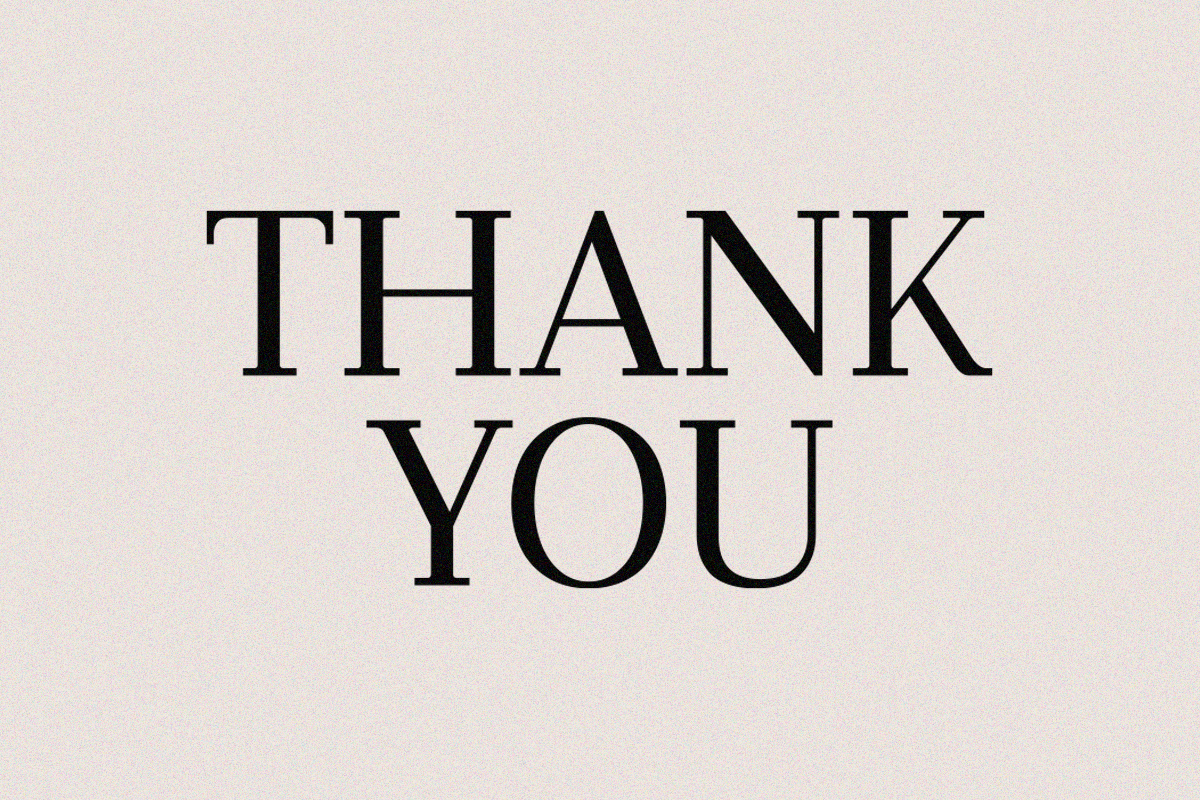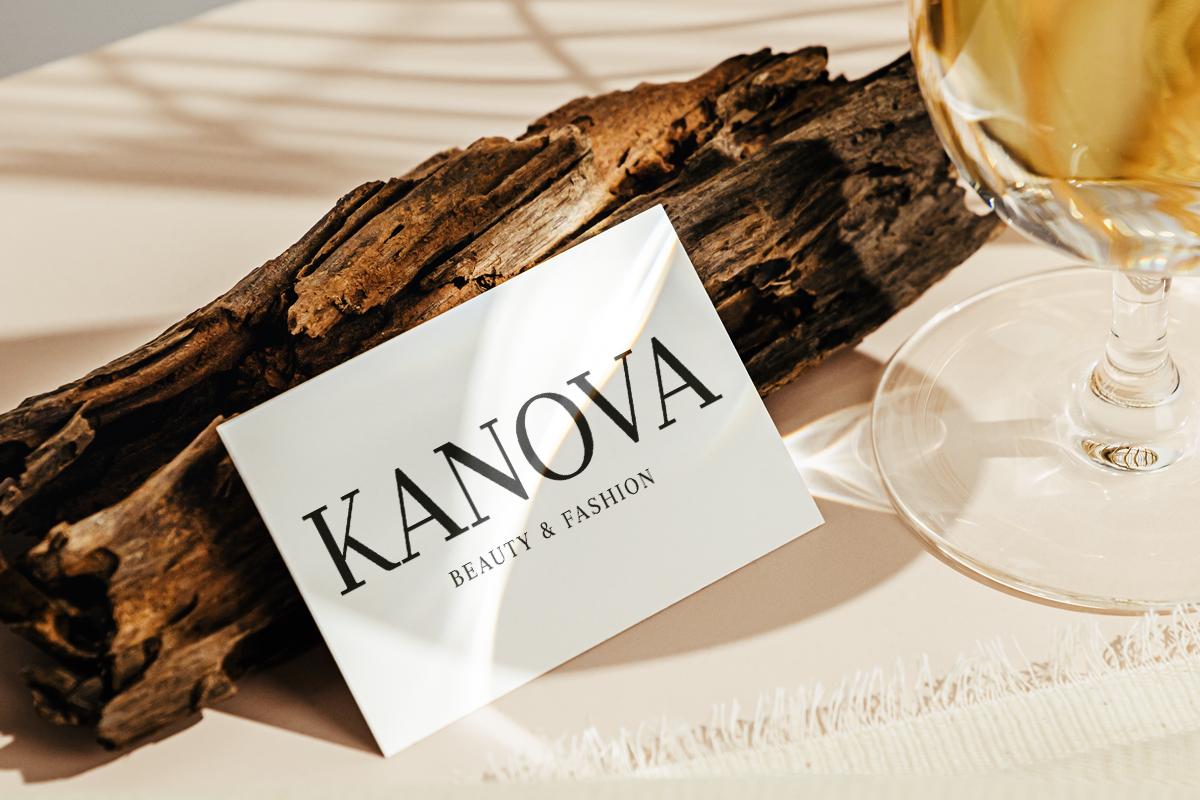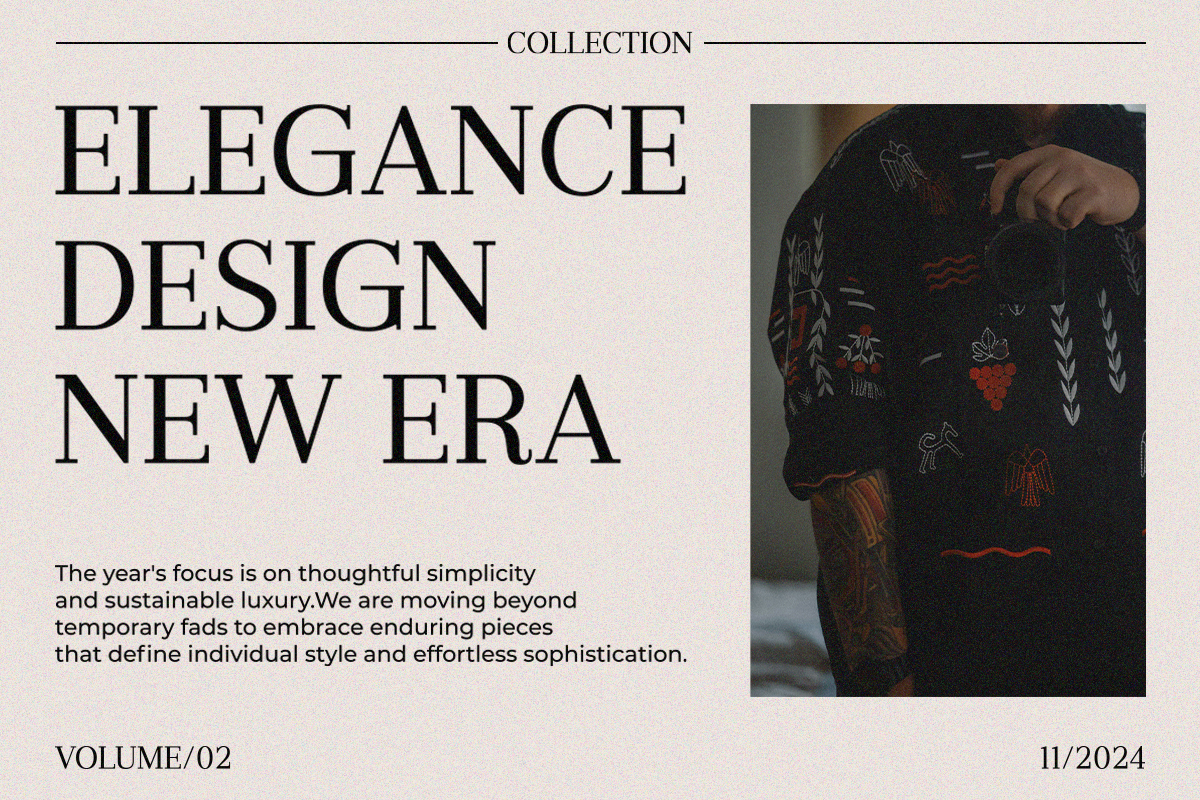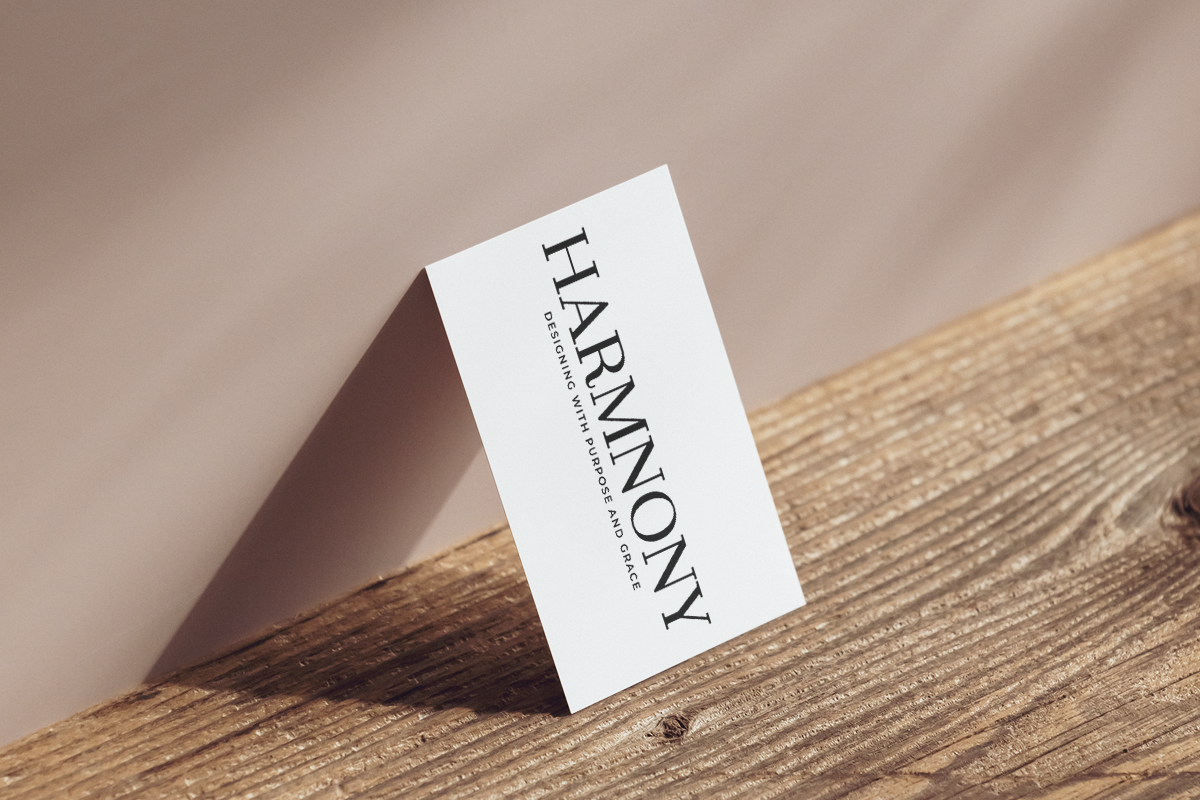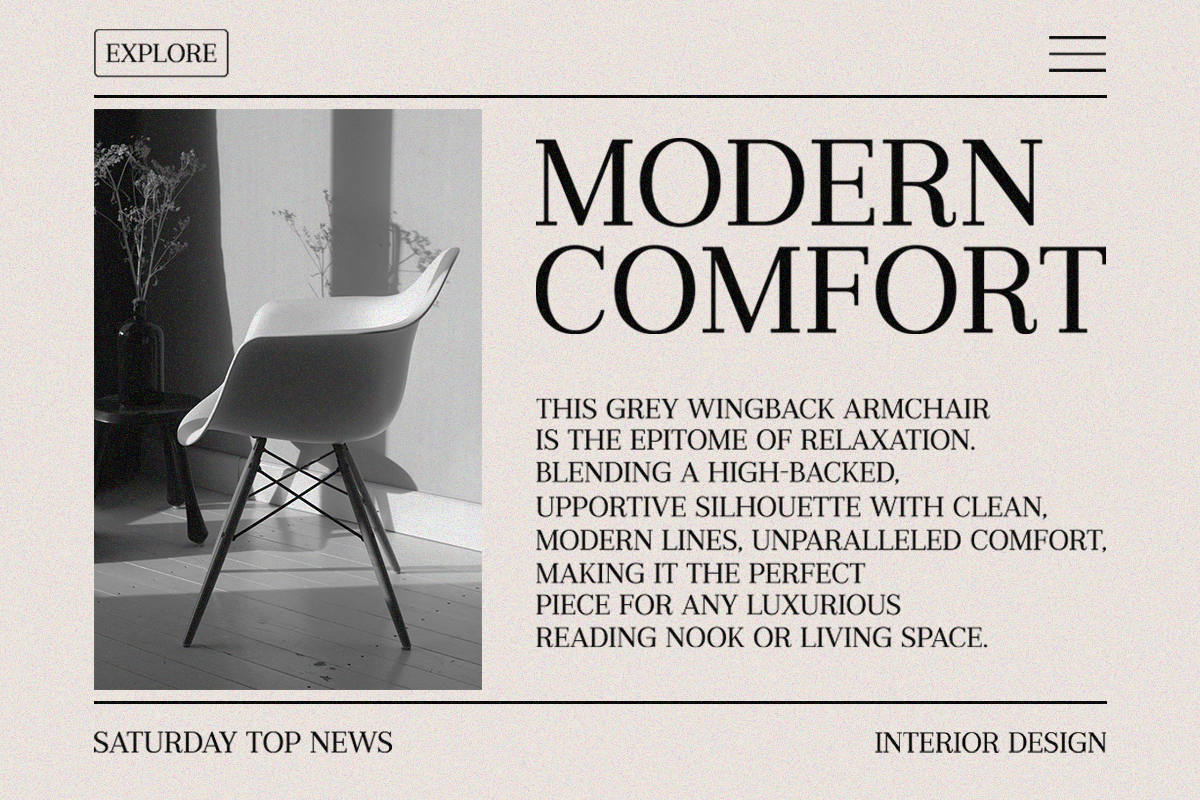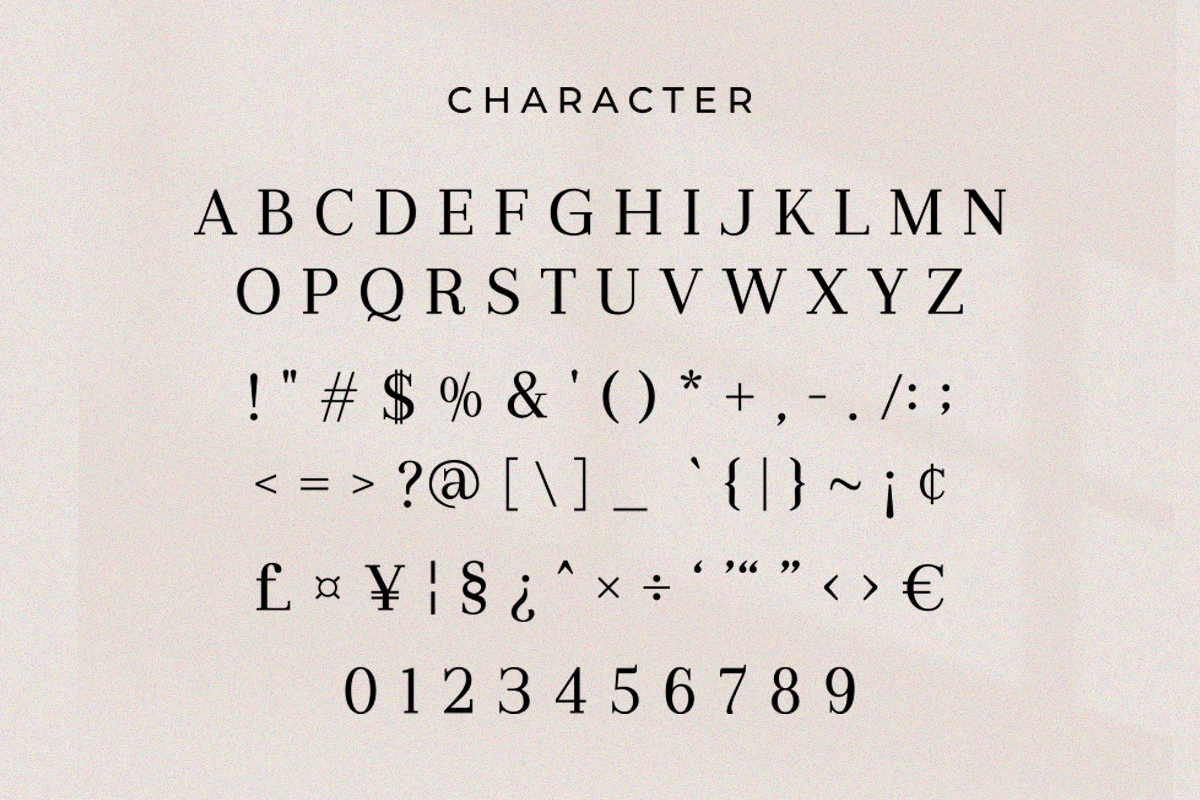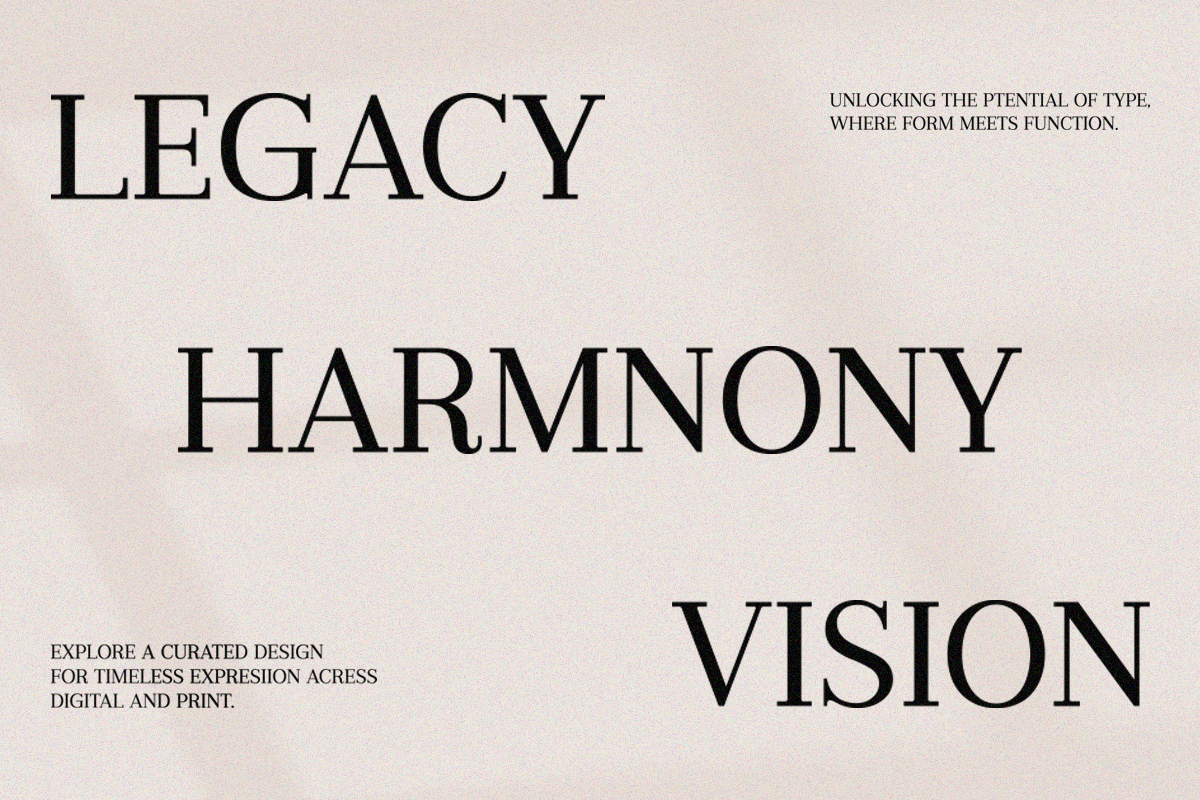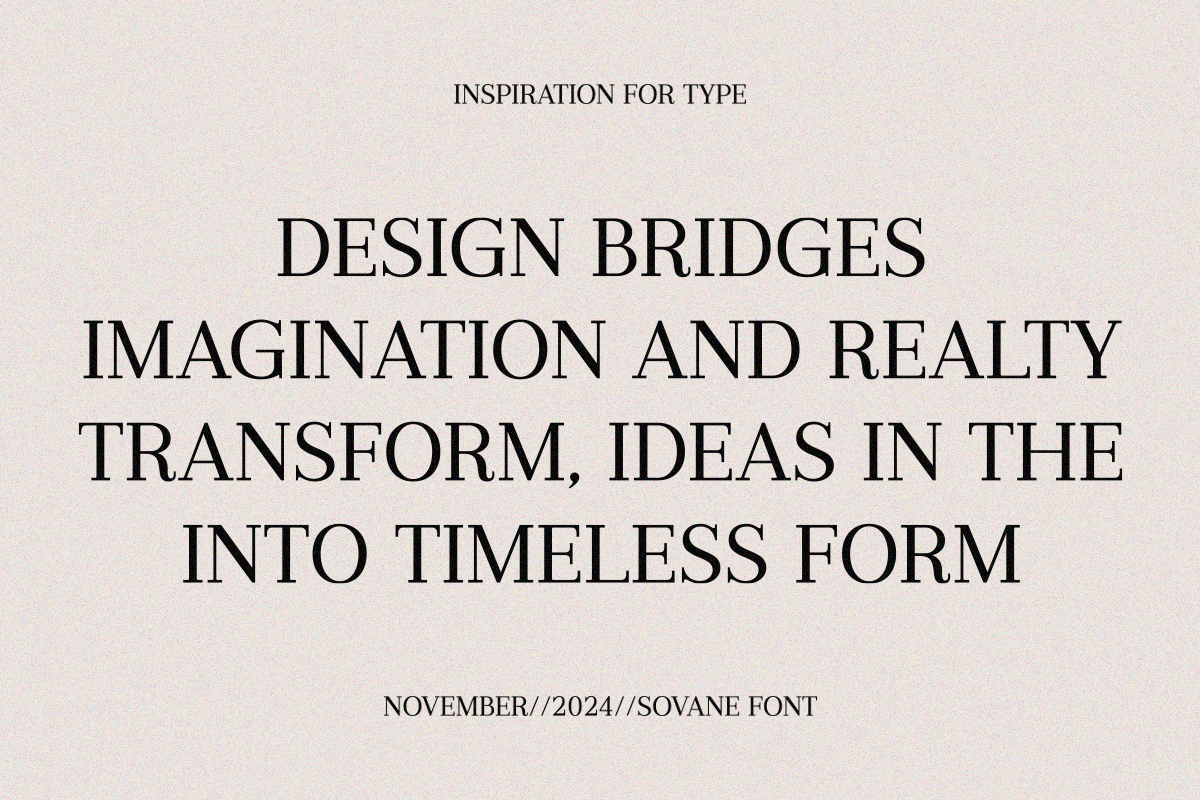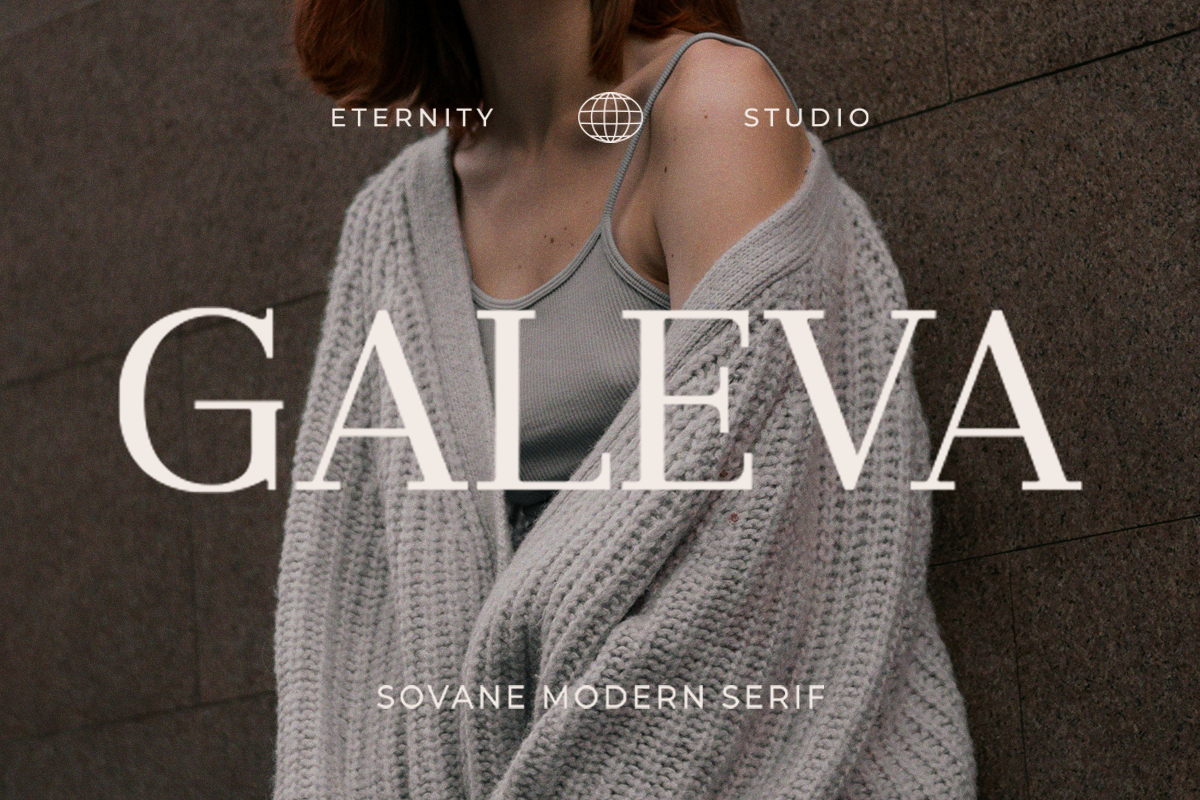
ET Sovane - Modern Serif Elegance
ET Sovane – Modern Serif Elegance is a refined typeface designed to elevate any creative project with a luxurious touch. Featuring graceful curves, balanced contrast, and stylish details, ET Sovane delivers a perfect blend of modern sophistication and timeless beauty.
Whether you’re working on high-end branding, fashion editorials, magazine layouts, product packaging, or classy wedding invitations — ET Sovane will ensure your typography looks polished and unforgettable.
Its versatile design offers exceptional readability while still maintaining a strong identity, making it the ideal choice for designers who demand both elegance and performance in their fonts.
📌 Perfect For • Luxury branding & logos • Editorial headlines & fashion magazines • Premium product packaging & labels • Invitations, stationery & boutique signage • Website titles & social media aesthetics
✨ Let ET Sovane bring modern elegance and iconic character into your next design.